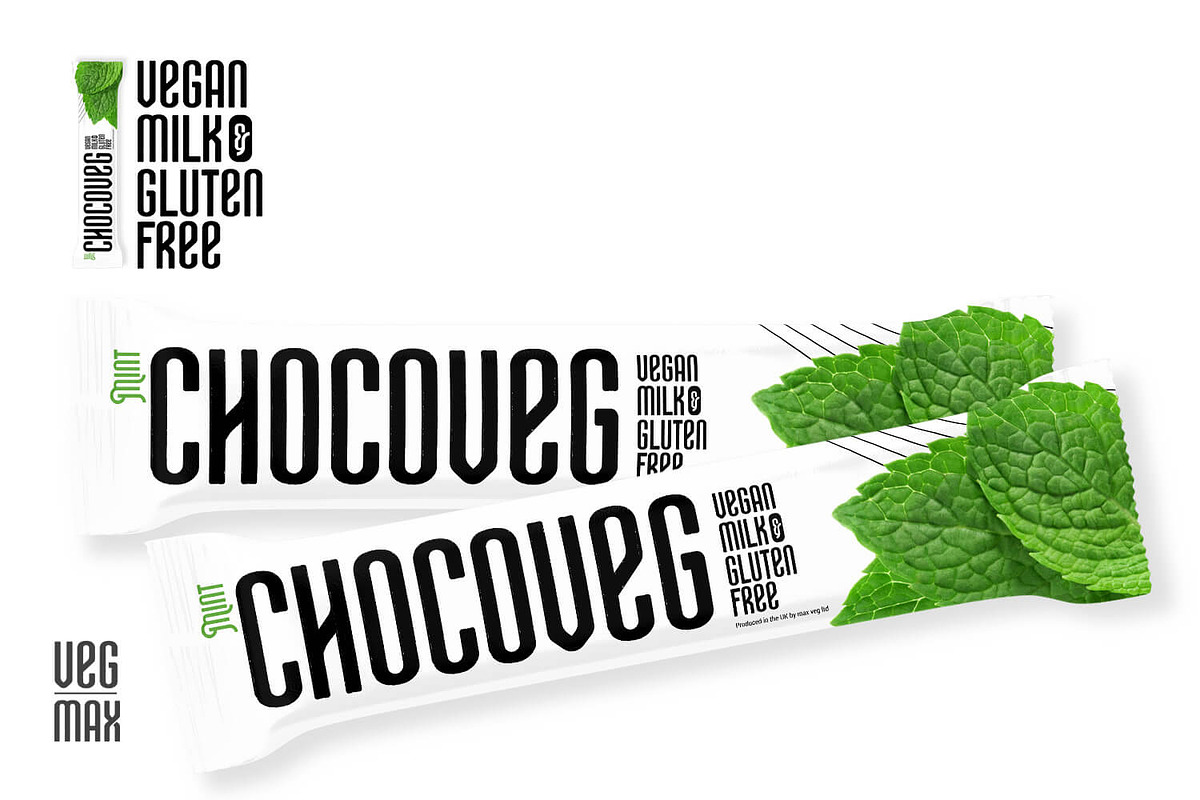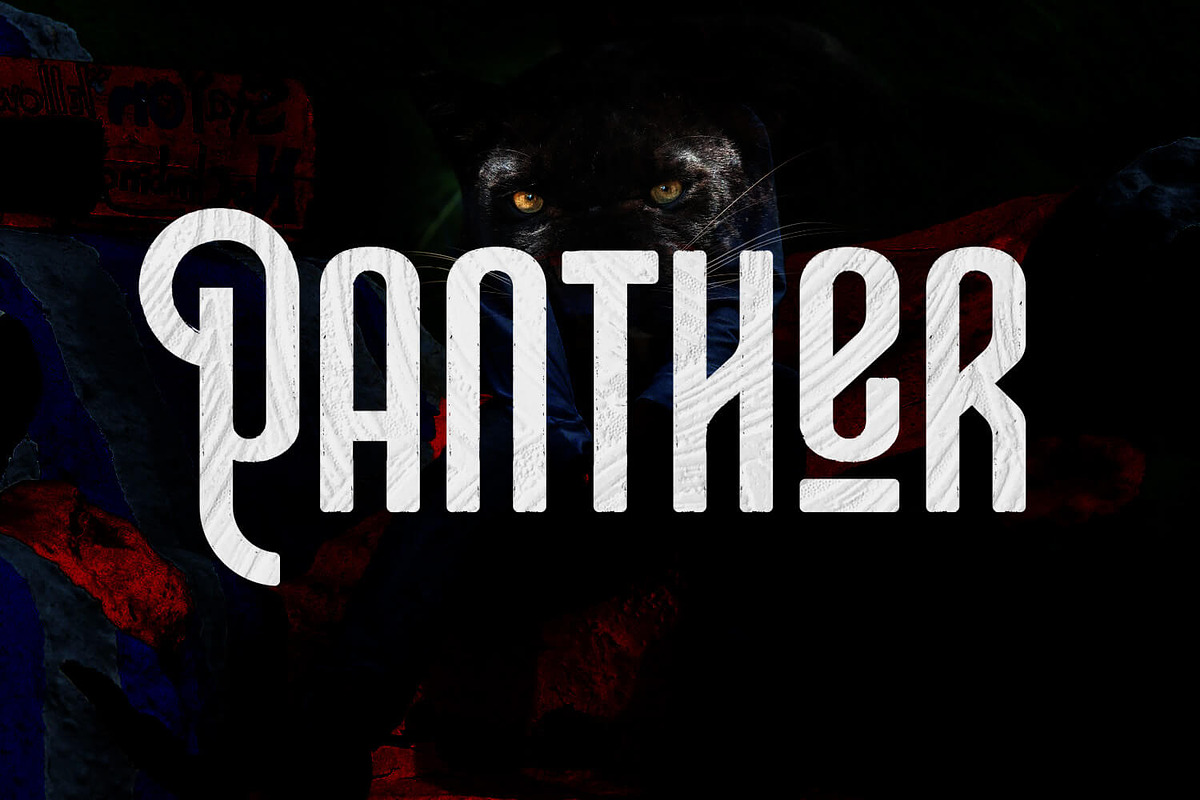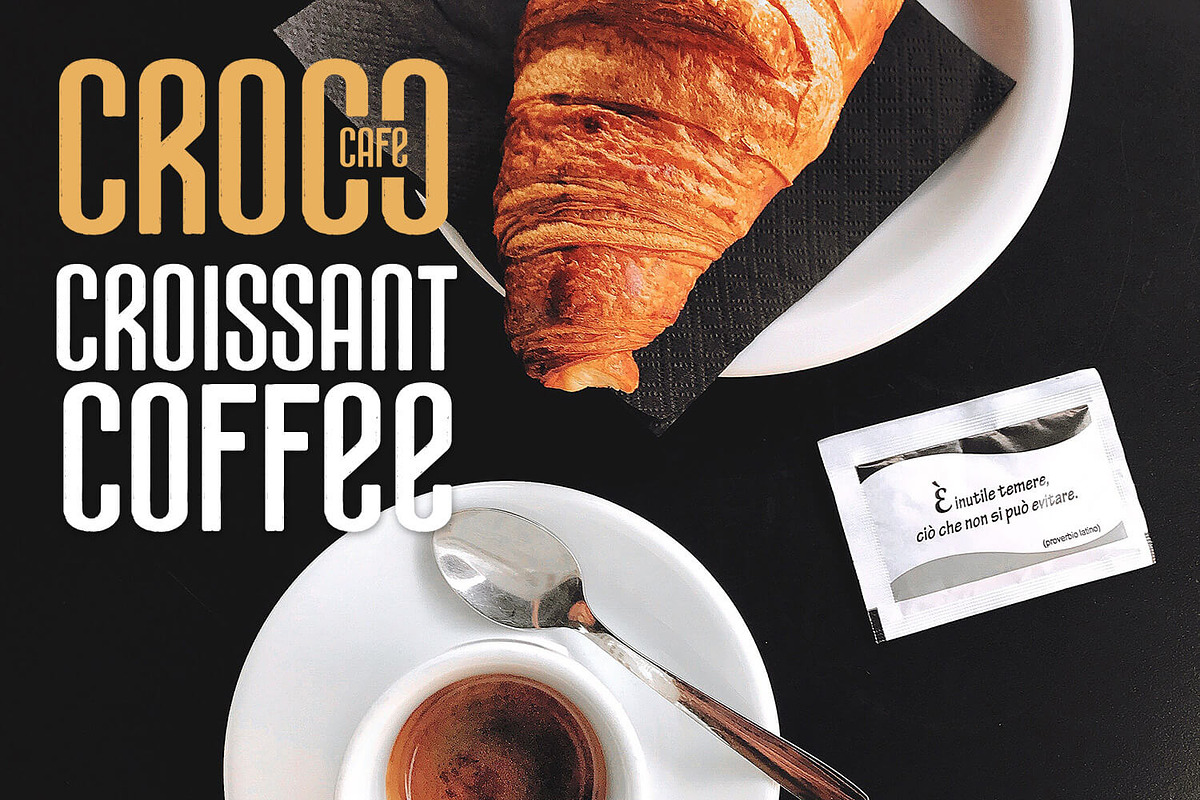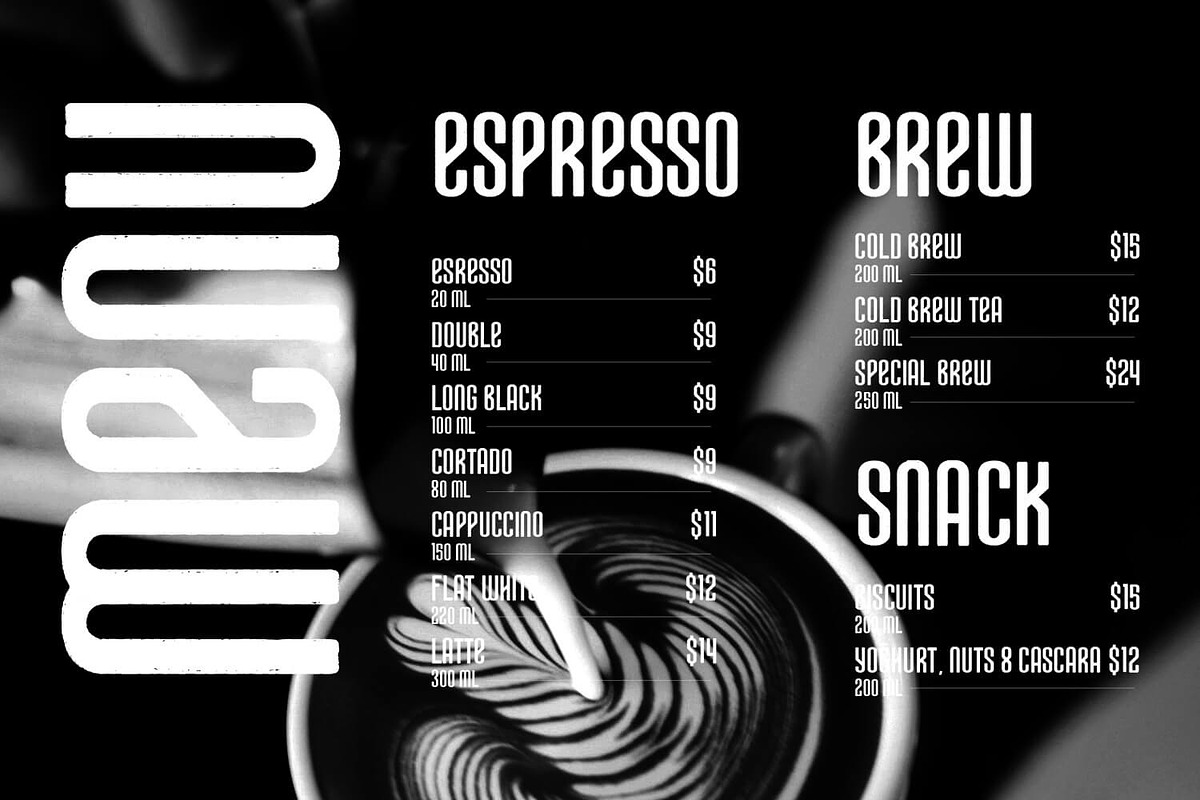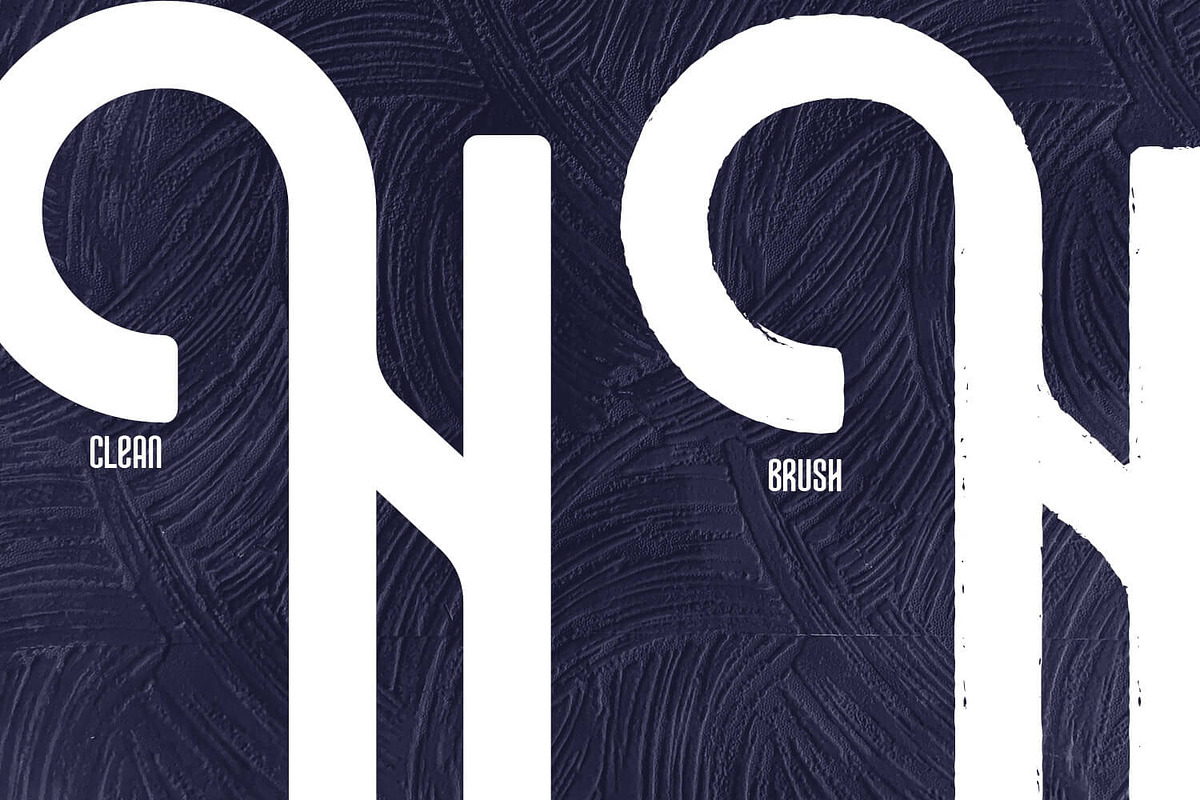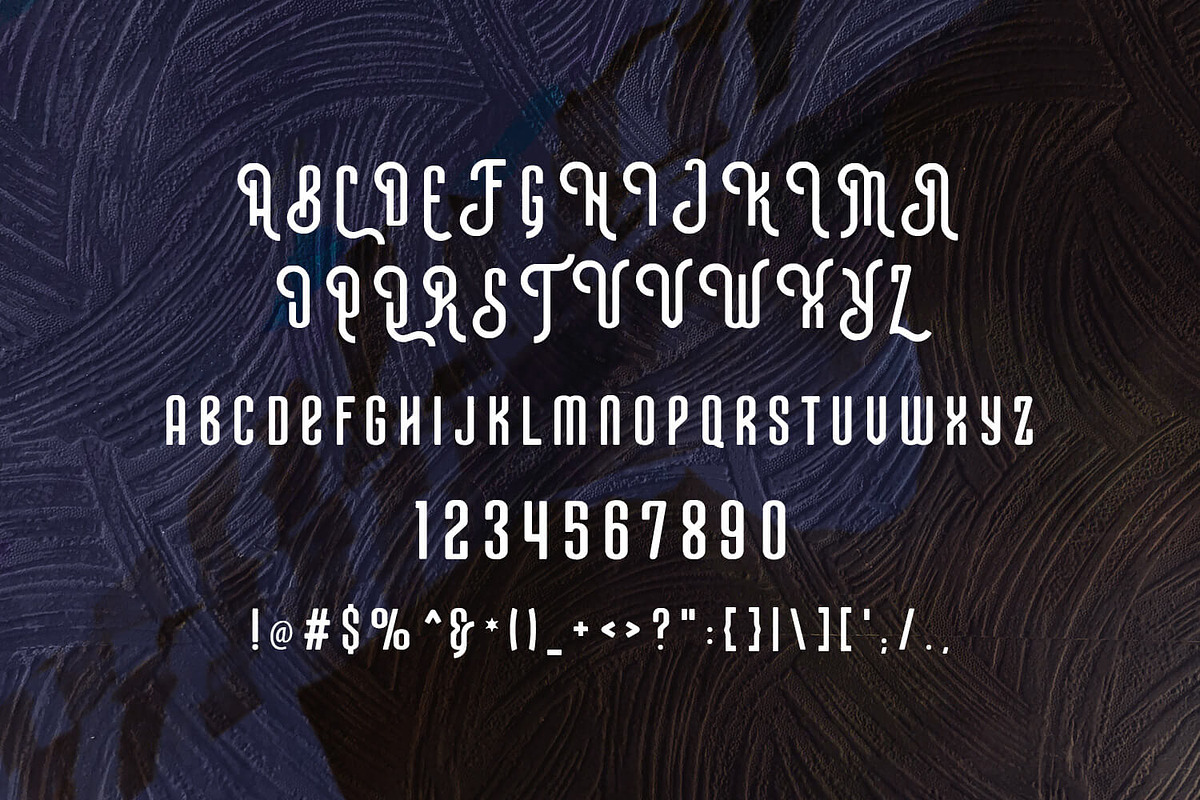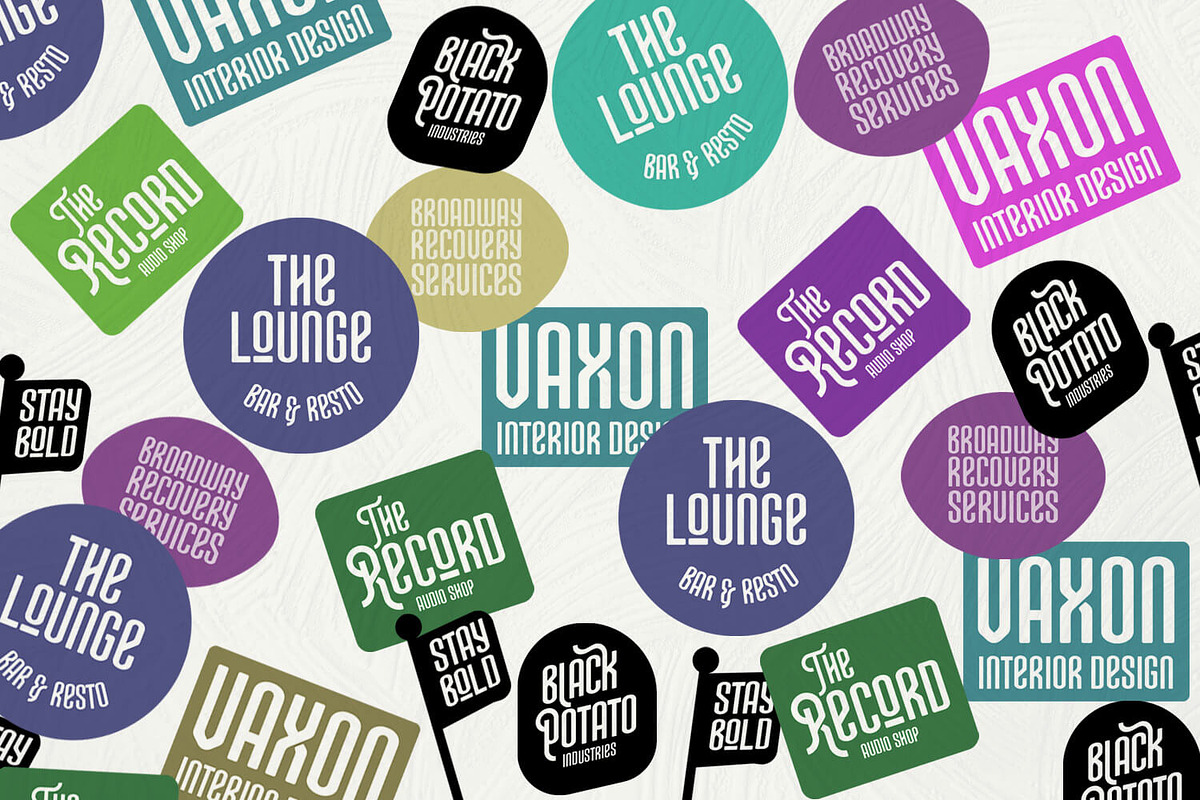
Mavera | Modern Display Font
Mavera Modern Display font
Condensed, Elegant and confident typeface with clean and simple brush version.
this modern and versatile typeface is suitable for any concept design, from menu design, restaurant, sports, poster, movie title, logo, and much more.
Uppercase has a unique shape or use only lowercase for simple but strong words to attract the attention of the audience straight to the point.